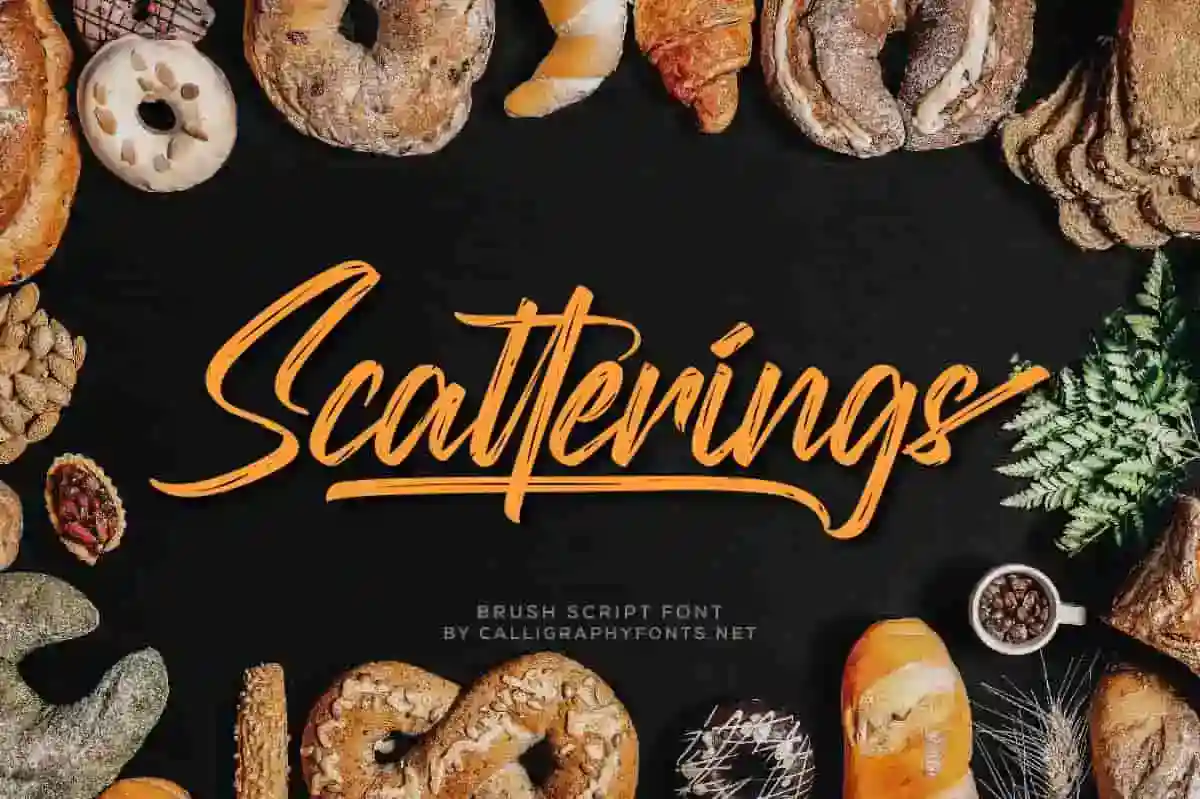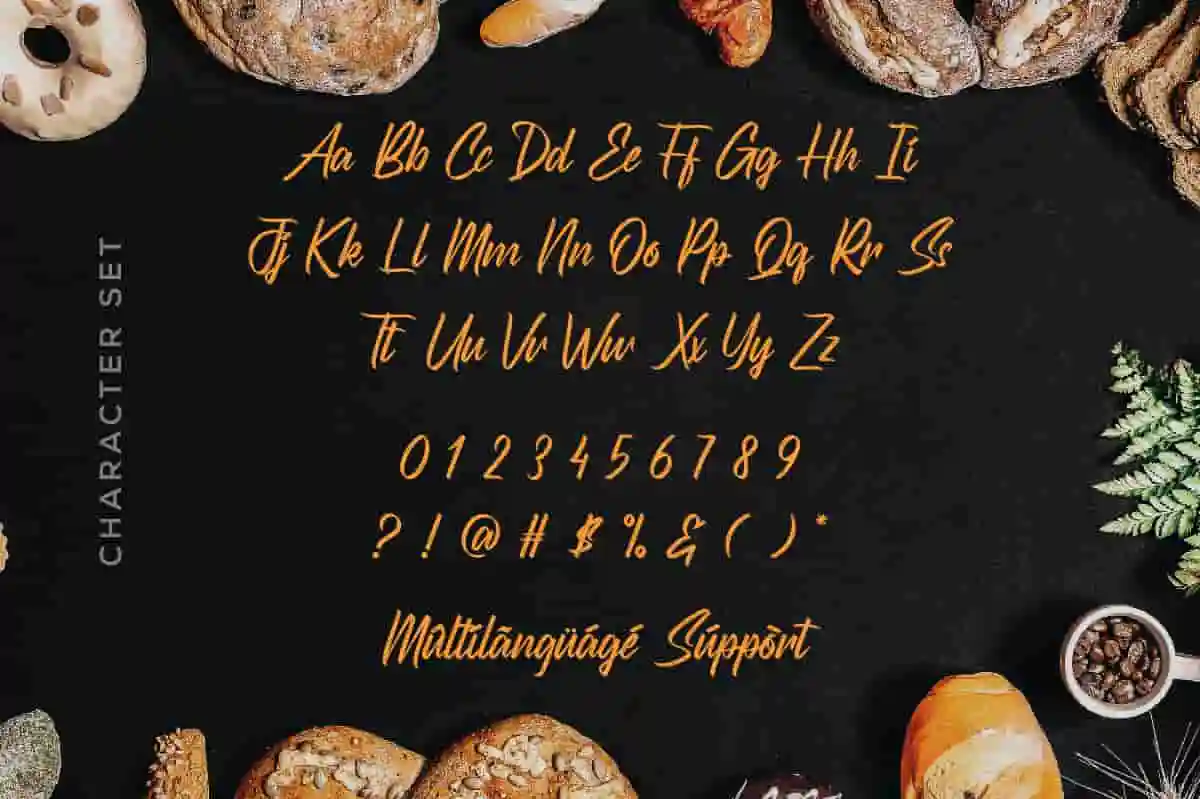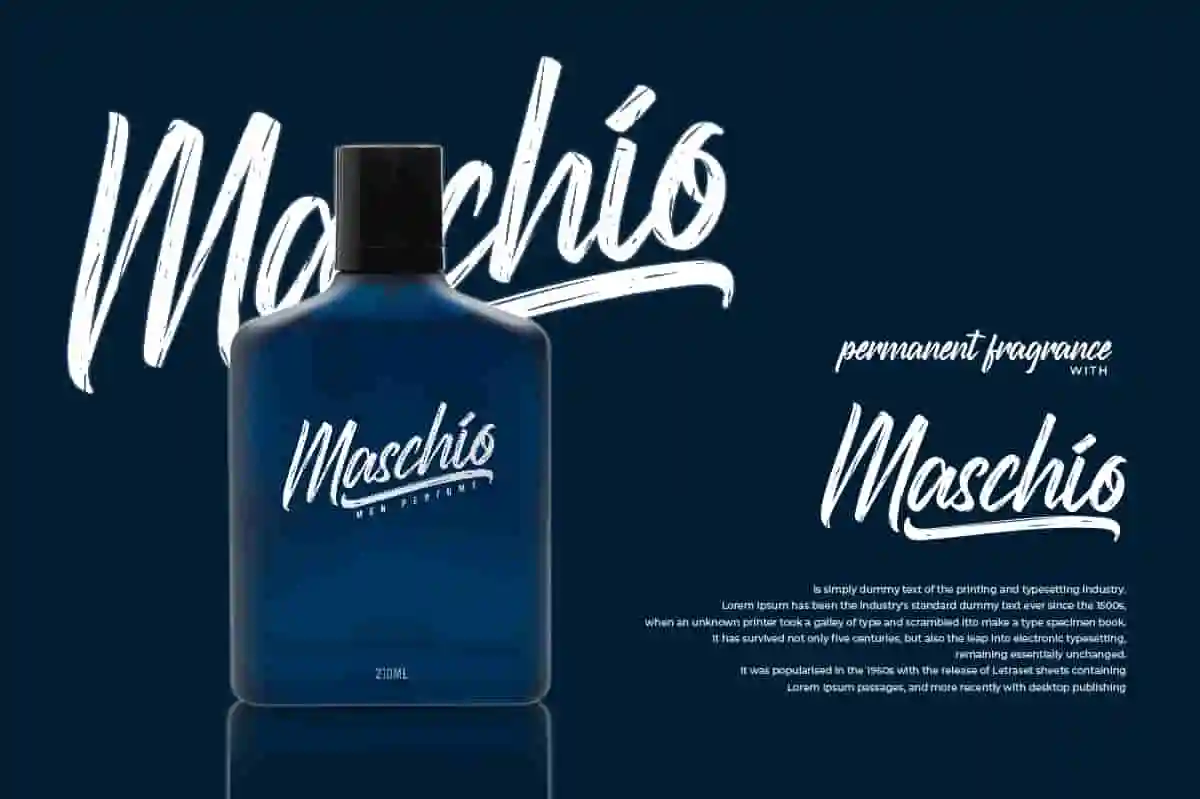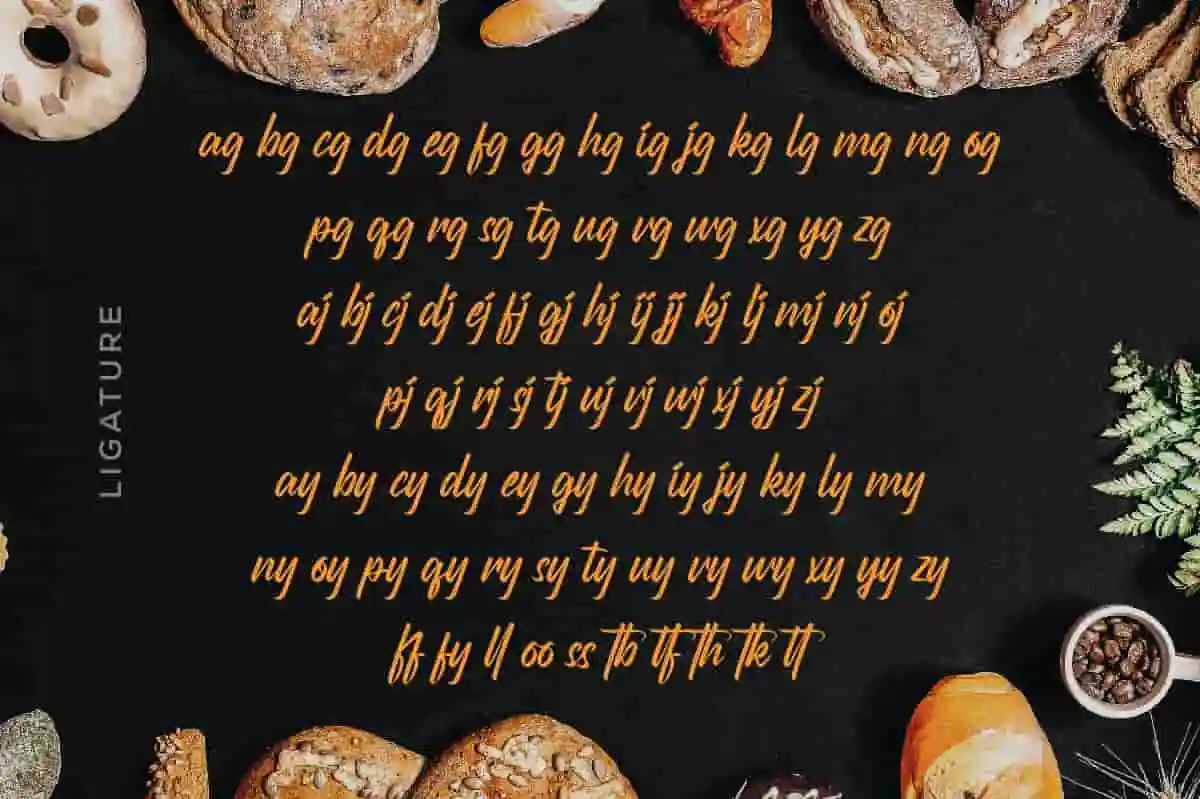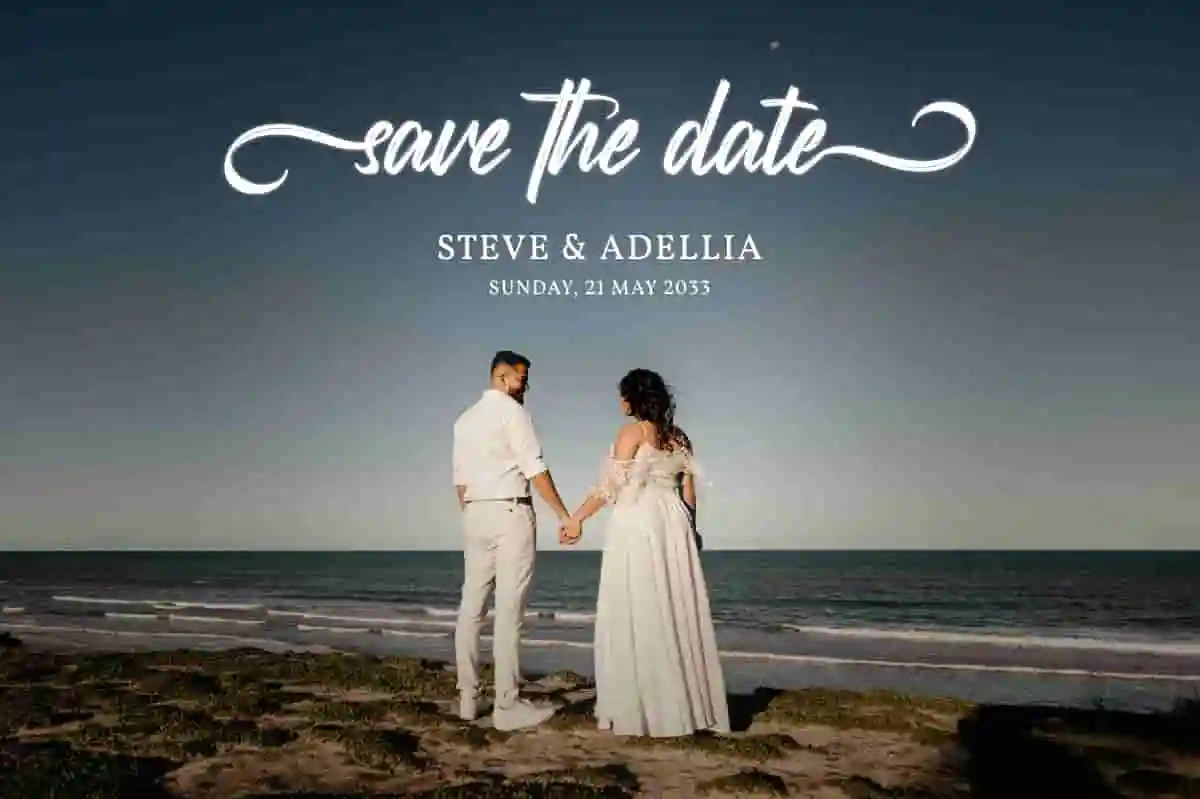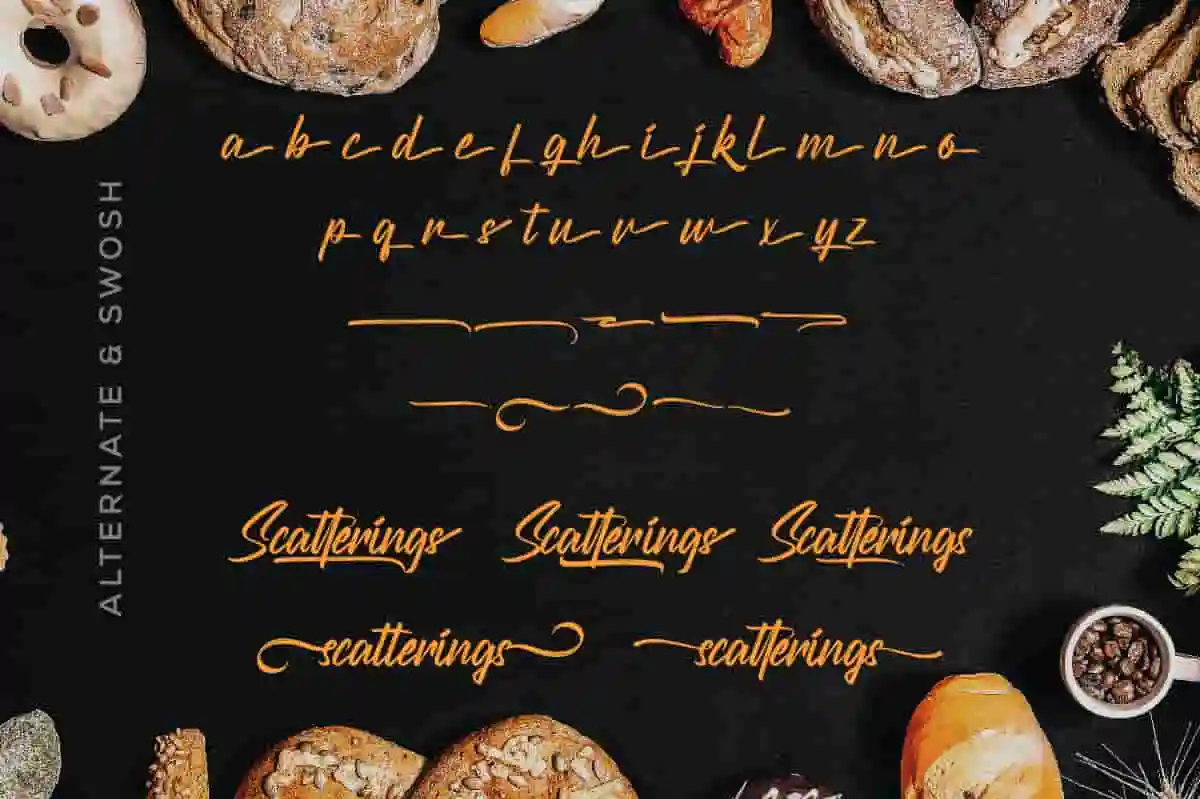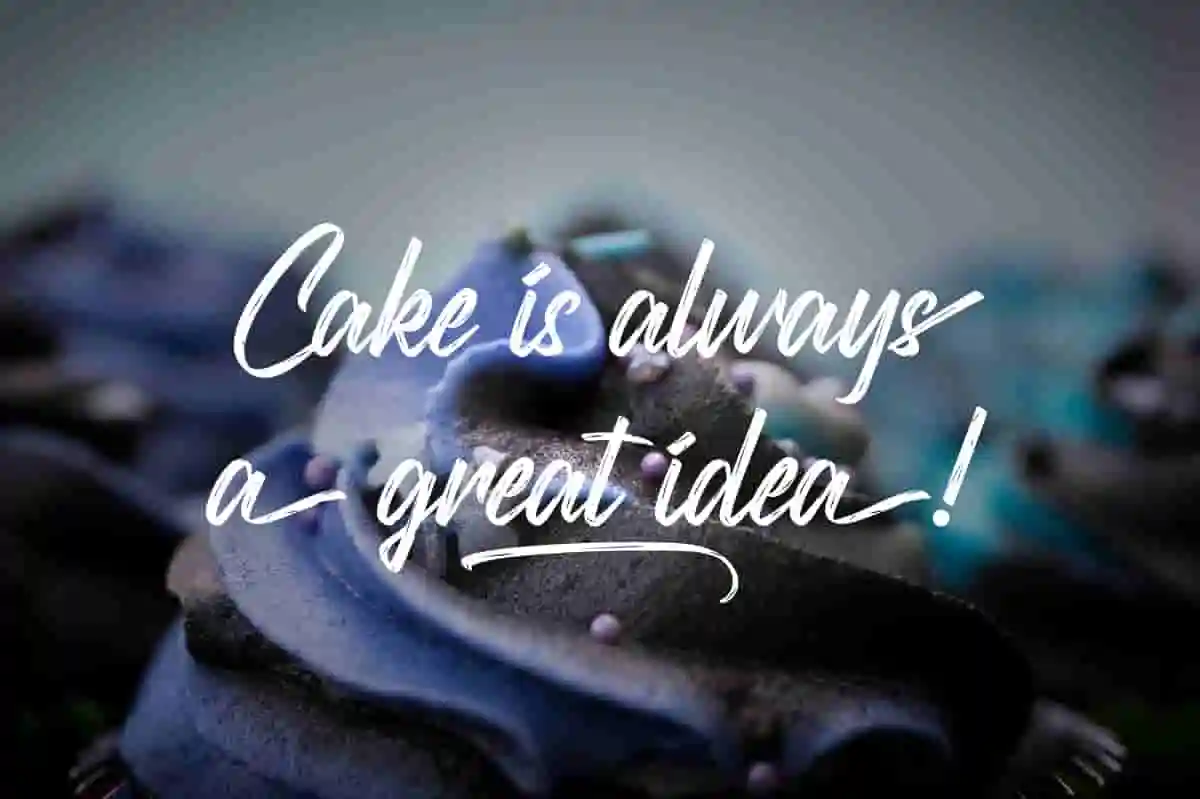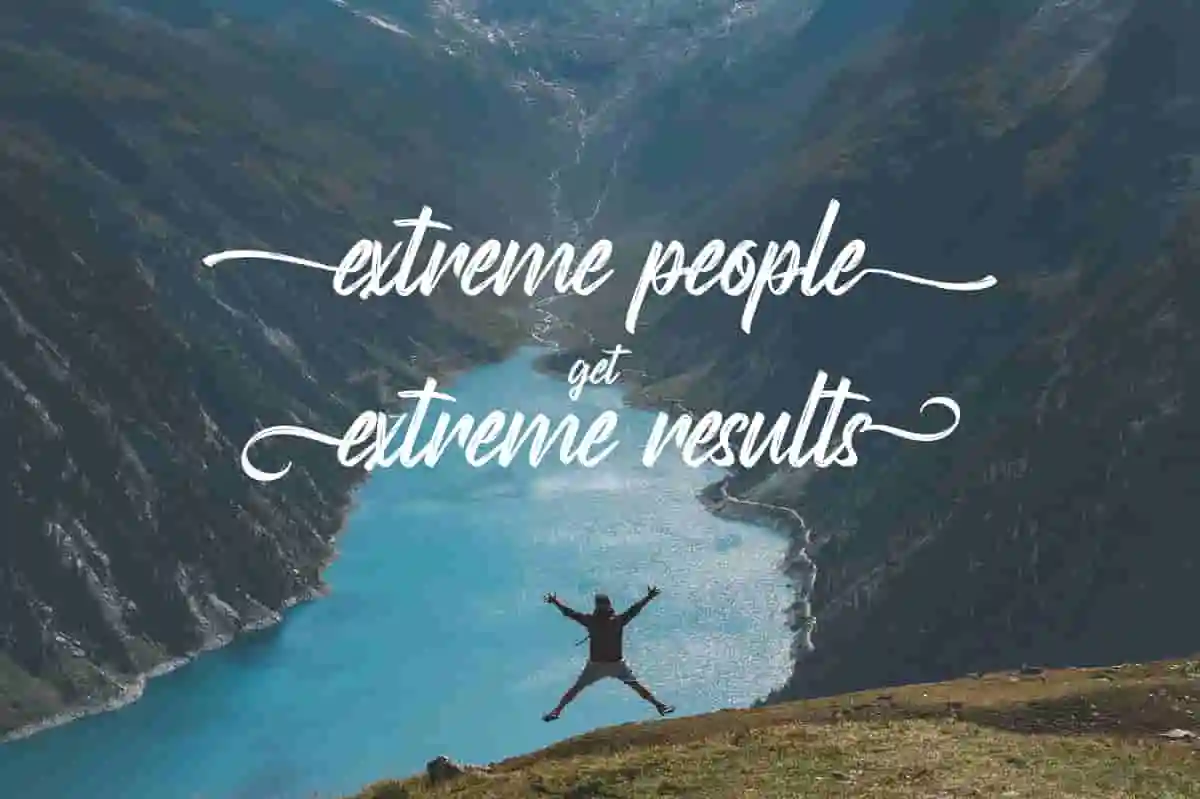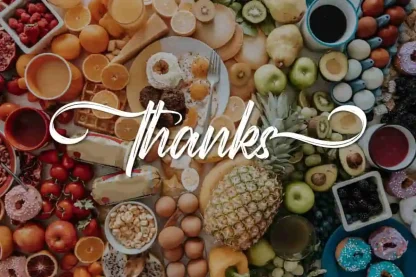
Scatterings Font
Scatterings Font is a fresh handmade brush font by CalligraphyFonts.net, Buy License to use it for Commercial purposes. Awesome for branding projects, homeware designs, product packaging – or simply as a stylish text overlay to any background image.
Scatterings is a handmade brush font combines attractive curves with a fresh urban edge; delivering a stylish script which is guaranteed to add an eye-catching appeal. The style of this font are stylish, classic, elegant, a fresh new handwritten brush script with a touch of class, and of course, some fabulous extras 🙂
Scatterings Font tested Work on PC & Mac. Scatterings font is inspired by Retro style and combination with Hand Lettering style. we made with personality touch every single curve. I hope this can make inspire you from your work. will be awesome for wedding, logos, handwritten quotes, product packaging, header, poster, merchandise, social media & greeting cards. Also great for branding projects, homeware designs, product packaging – or simply as a stylish text overlay to any background image.